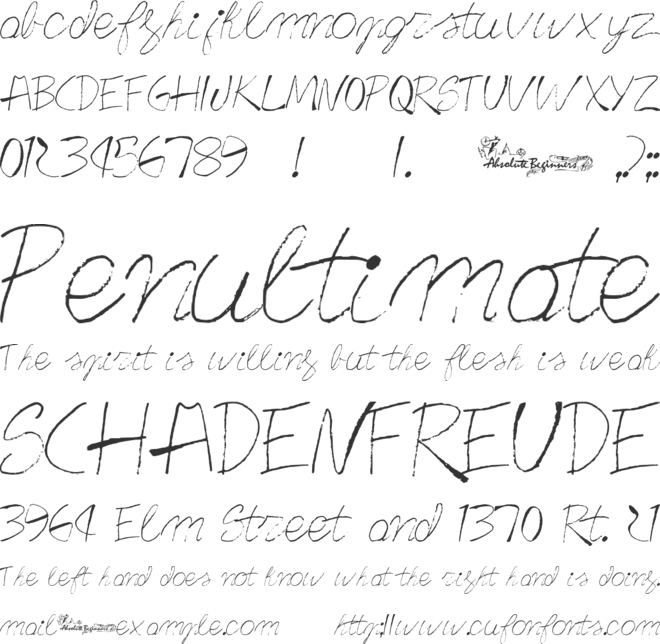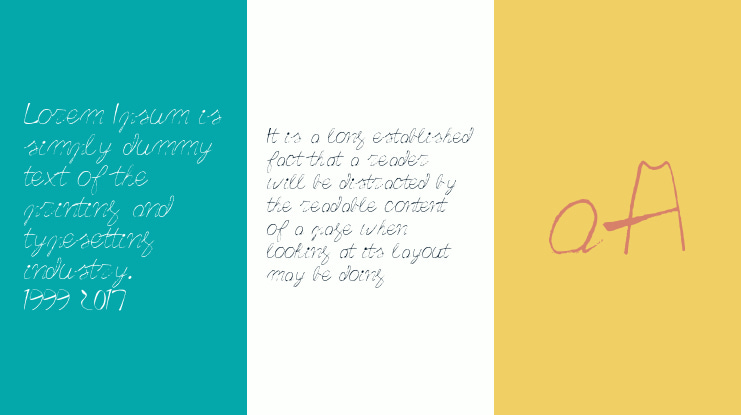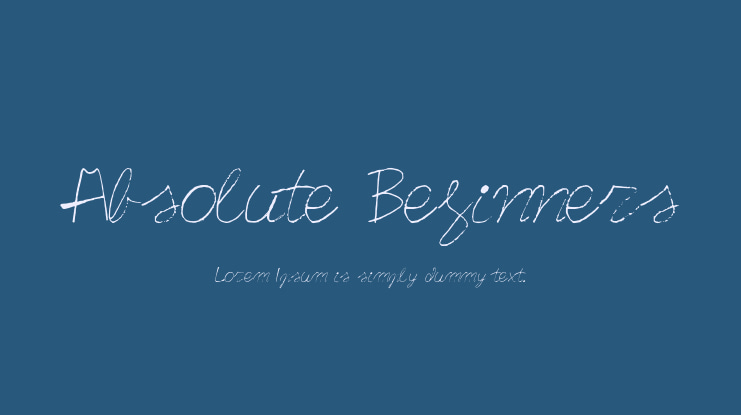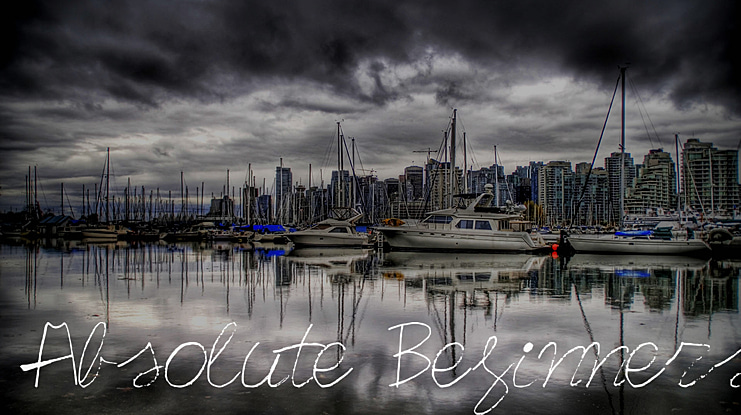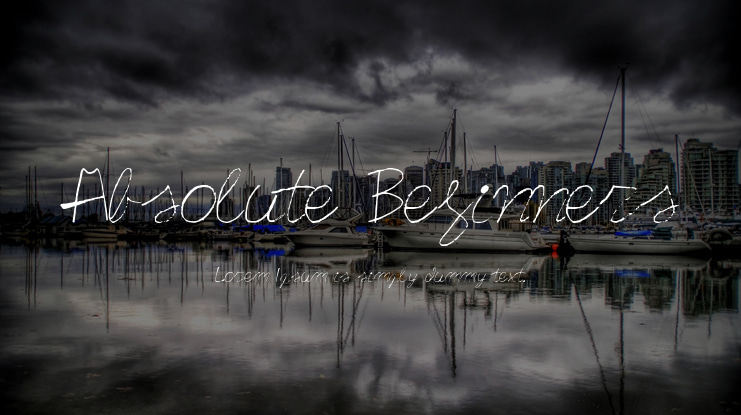
Absolute Beginners Font
directly from the Best movie by Julien Temple, with David Bowie, the original font for all lovers.
direttamente dal film diretto da Julien Temple e interpretato da David Bowie, il font inedito per tutti gli estimatori del film.